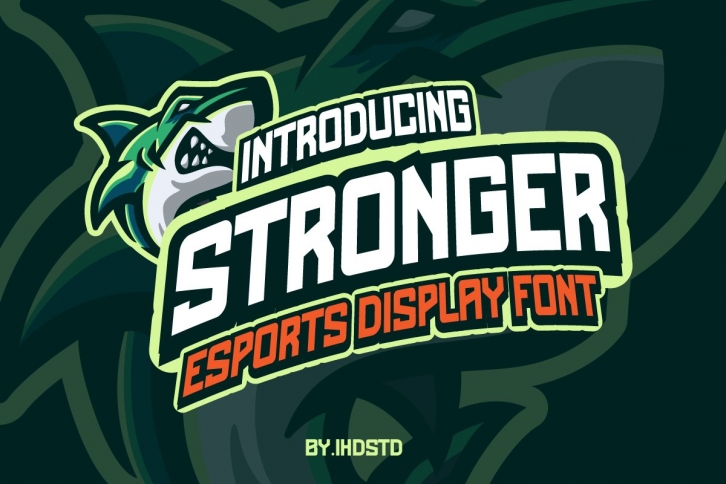
Stronger Esports Ttypeface FONT Download
Stronger Esports Ttypeface Font Download
Stronger font is our new item that suitable for your team logo or community logo.
Great for Logo, Sticker, Jersey, Invitation Card, Brochure, etc.